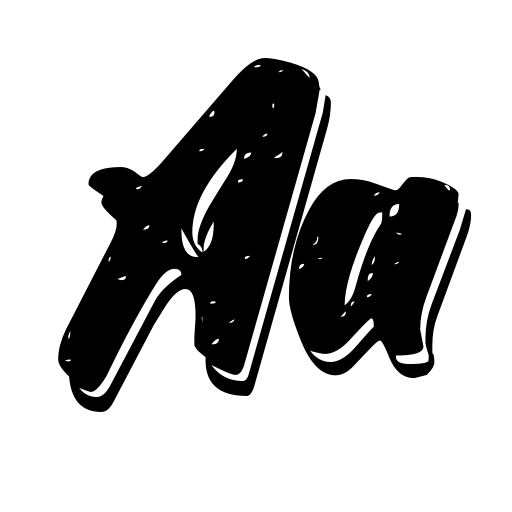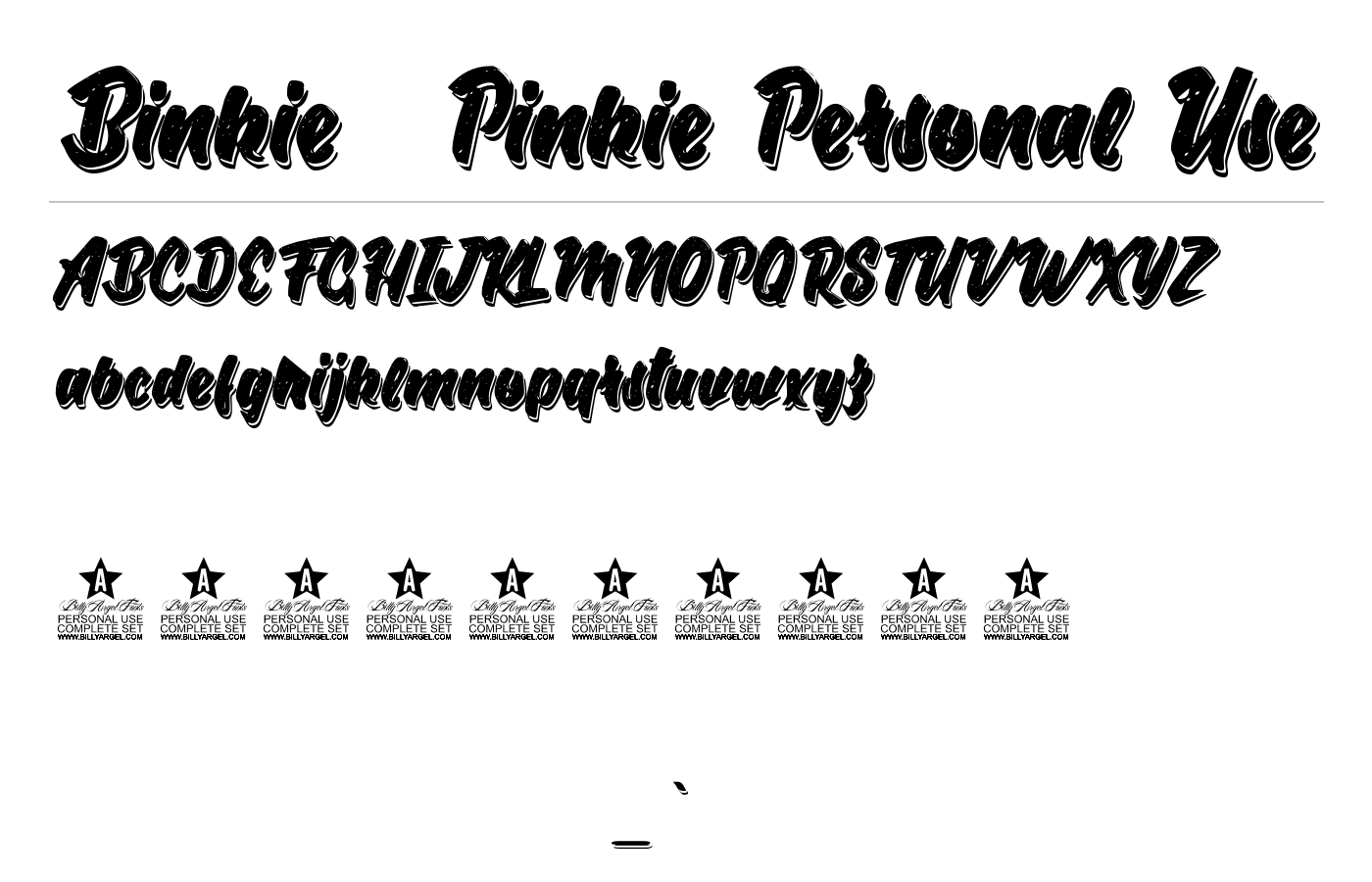
Binkie & Pinkie is a bold, brush-script font with a playful and energetic vibe, featuring thick strokes and lively, slightly textured edges that give it a hand-painted feel. Its rounded, casual letterforms and dynamic flow make it perfect for fun, creative projects like logos, posters, and packaging that want to convey personality and warmth. This font works especially well in display settings where an informal, friendly tone is desired.
Binkie & Pinkie Personal Use Font
About Binkie & Pinkie Personal Use Font